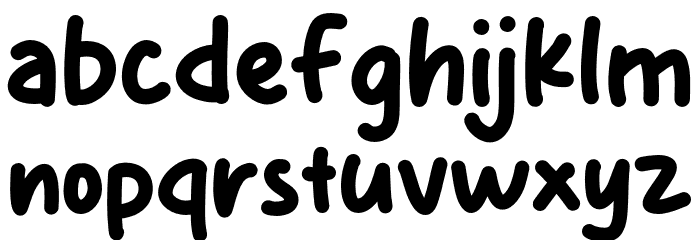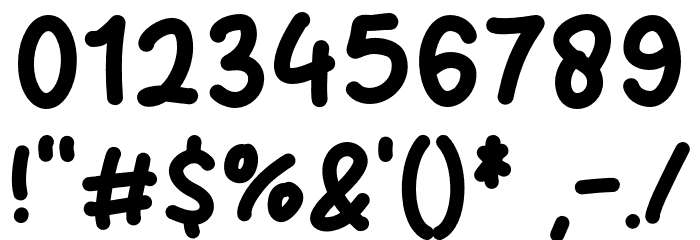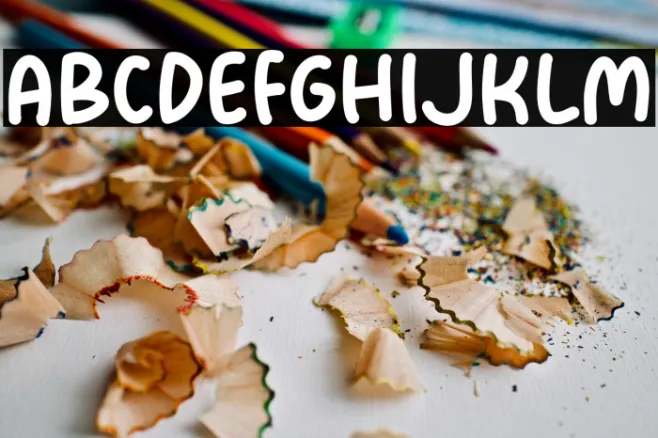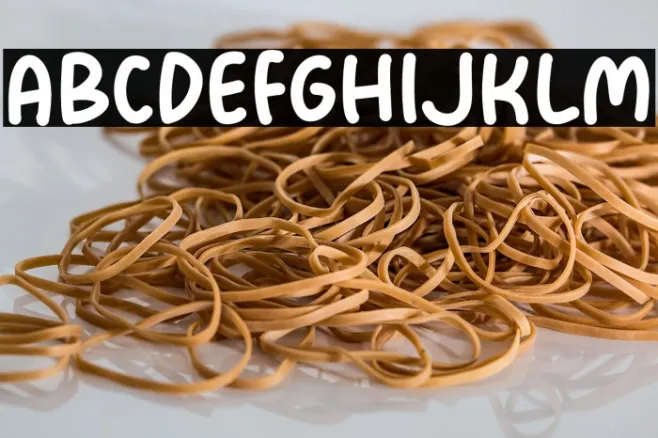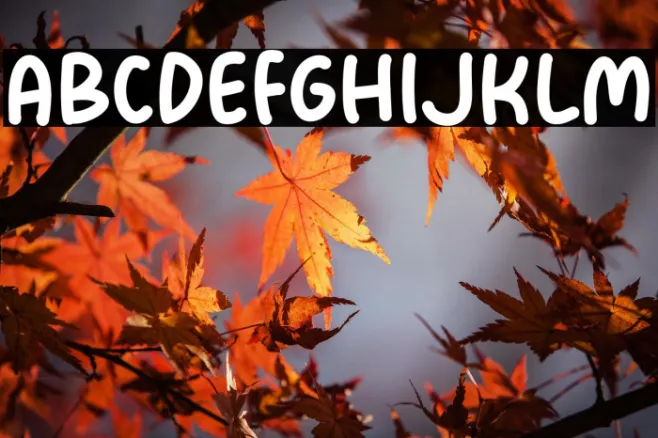
California Scene Font
This font features a playful and rounded style, characterized by its bold and smooth curves. The letters are evenly weighted, giving it a friendly and approachable appearance. The uppercase and lowercase letters maintain a consistent style, with rounded edges and a slightly informal feel. The numbers and special characters follow the same design principles, ensuring a cohesive look across all glyphs. This font is ideal for projects that require a casual and fun aesthetic, such as children's books, playful branding, or informal invitations.
A playful, rounded font with bold, smooth curves and a friendly appearance.
- Font: California Scene
- Proposed Projects: Children's books, playful branding, informal invitations, casual posters.
- Category: Handwritten
- Overall Style: Playful